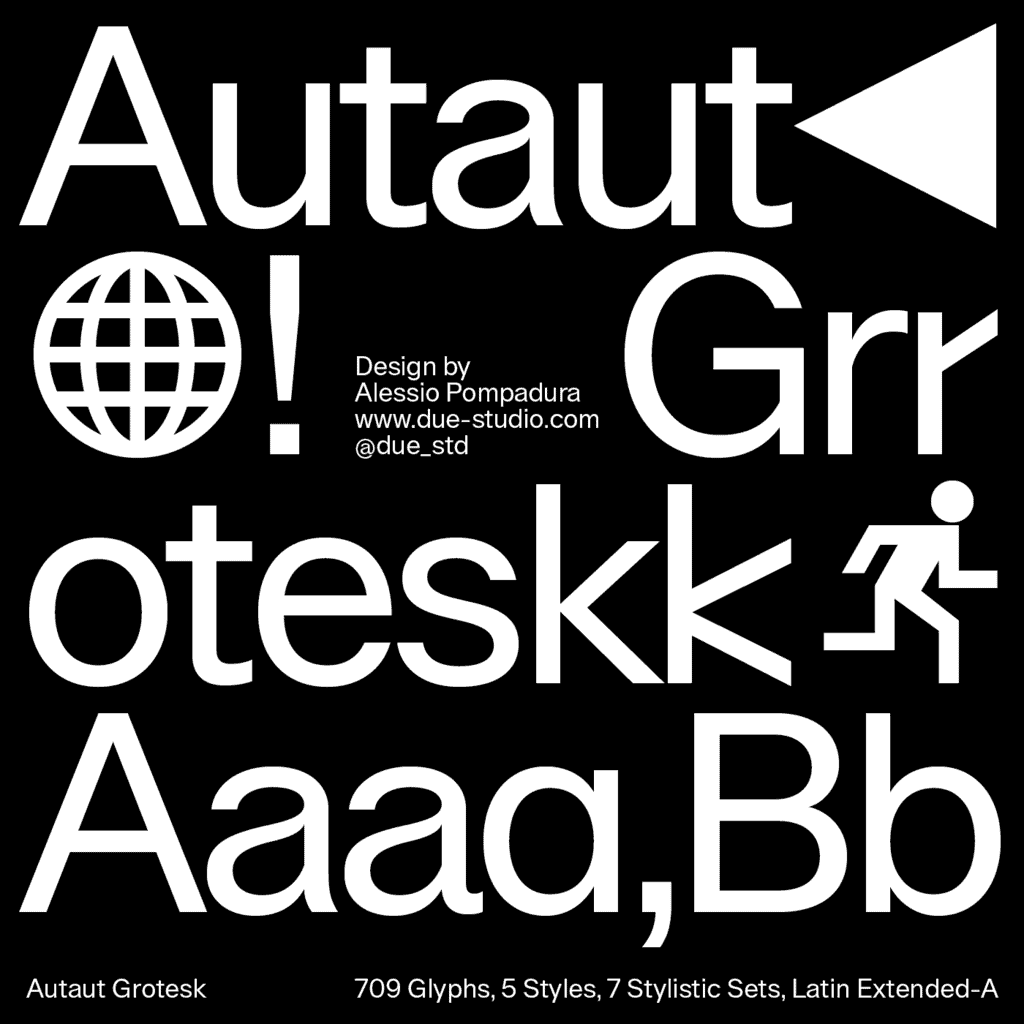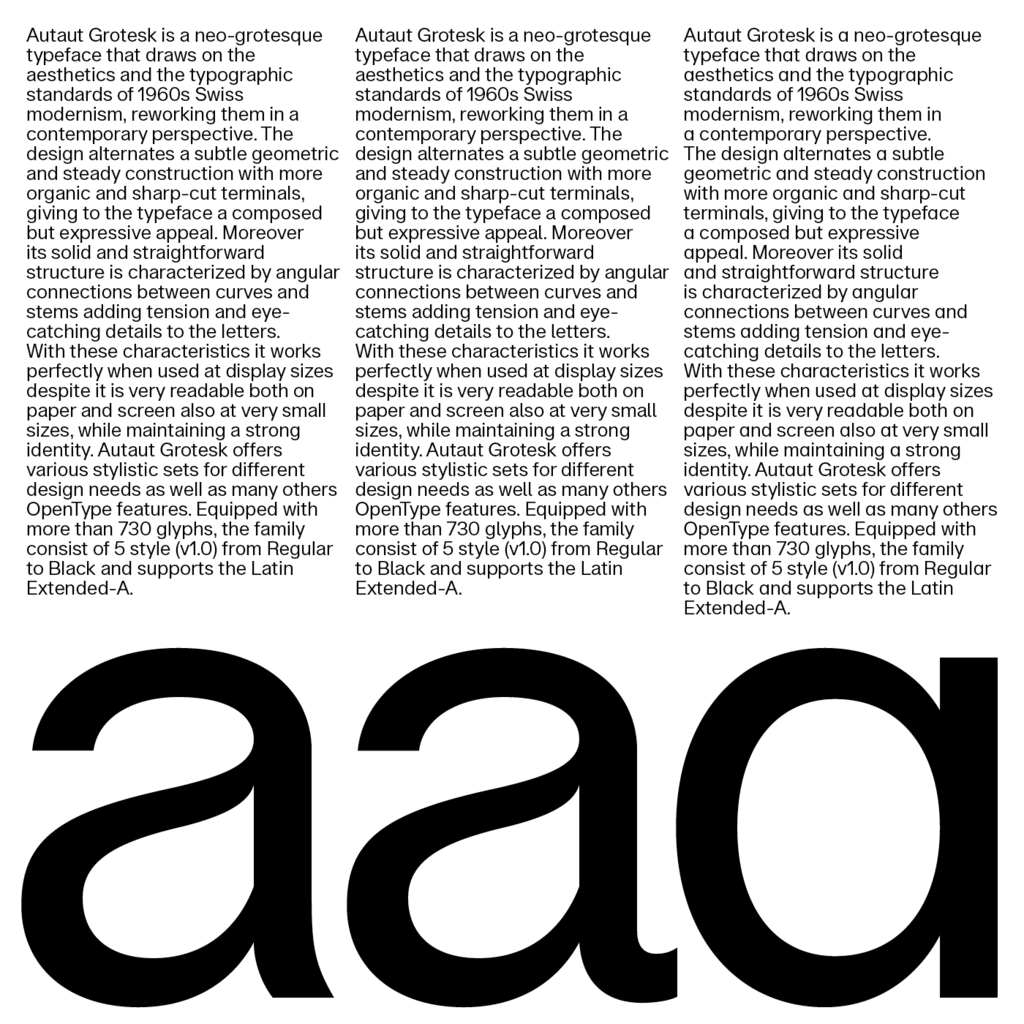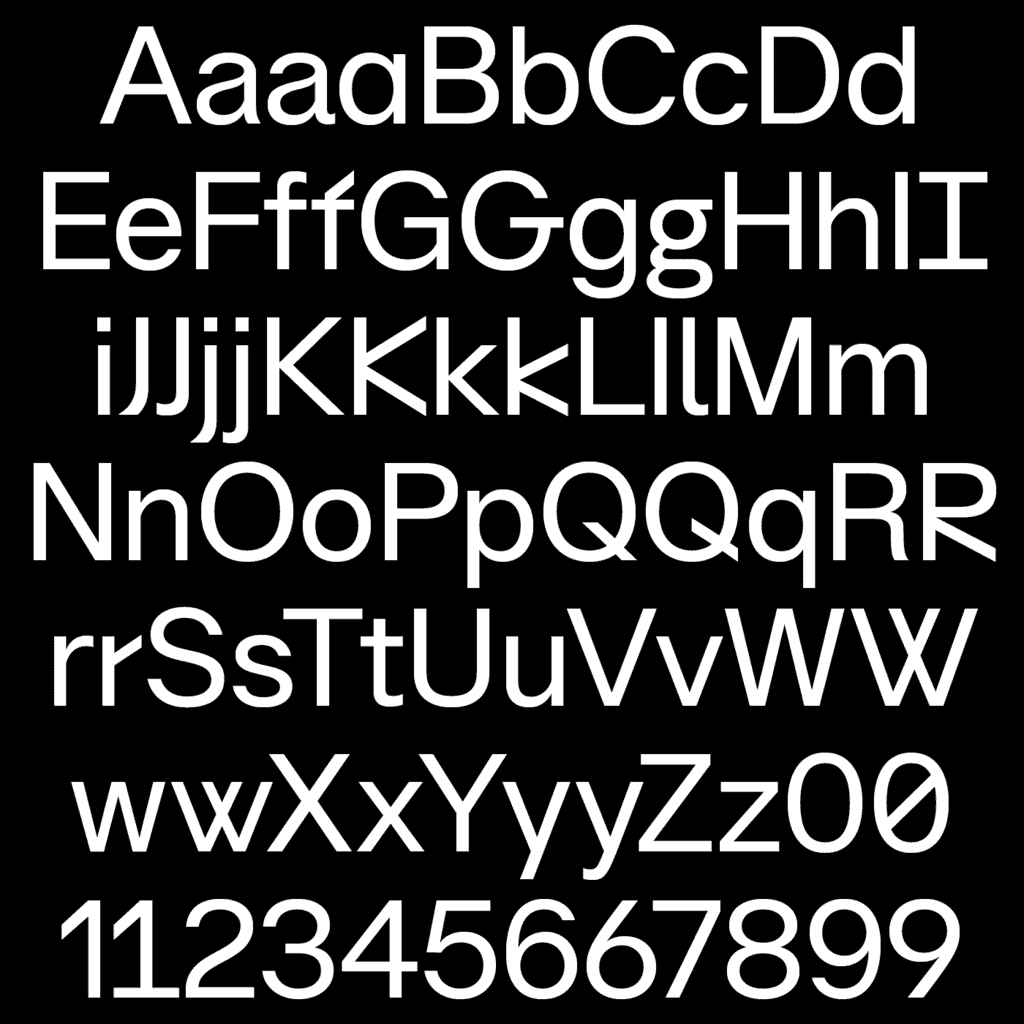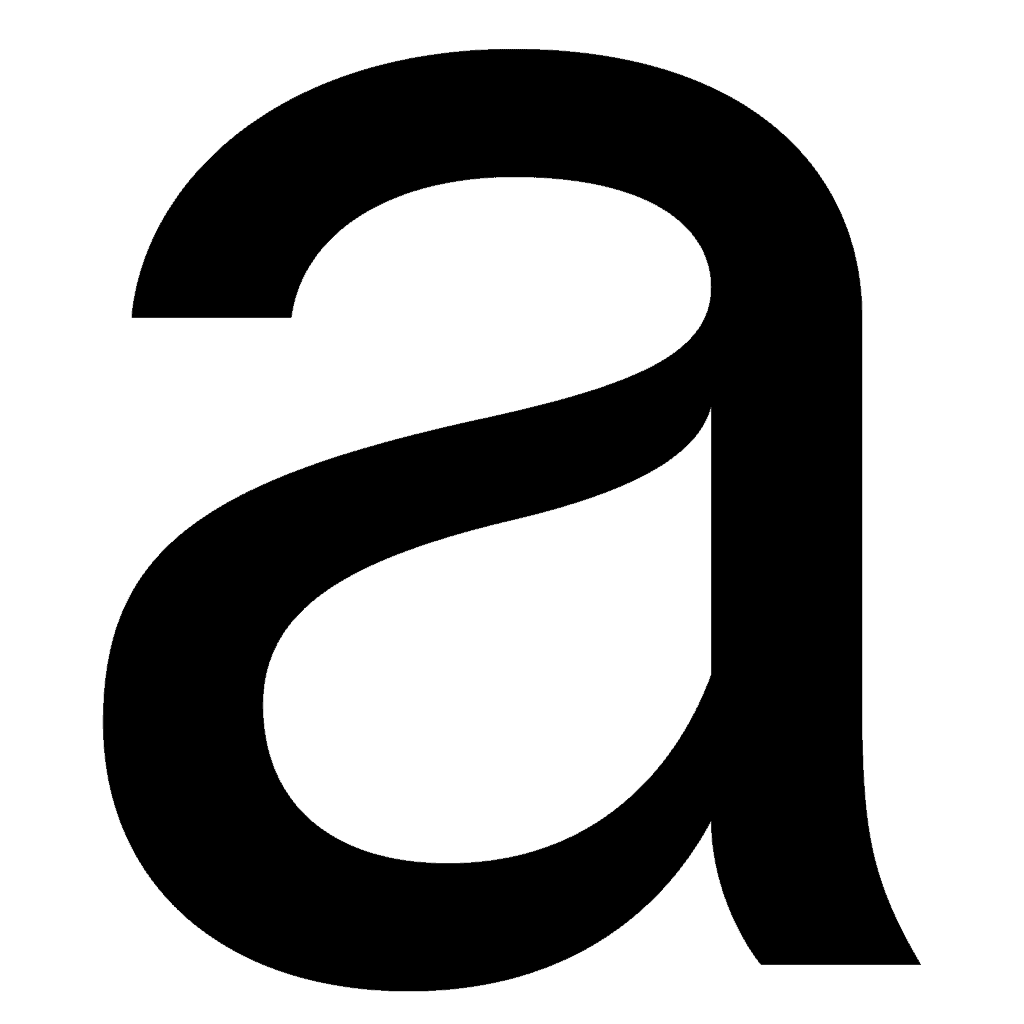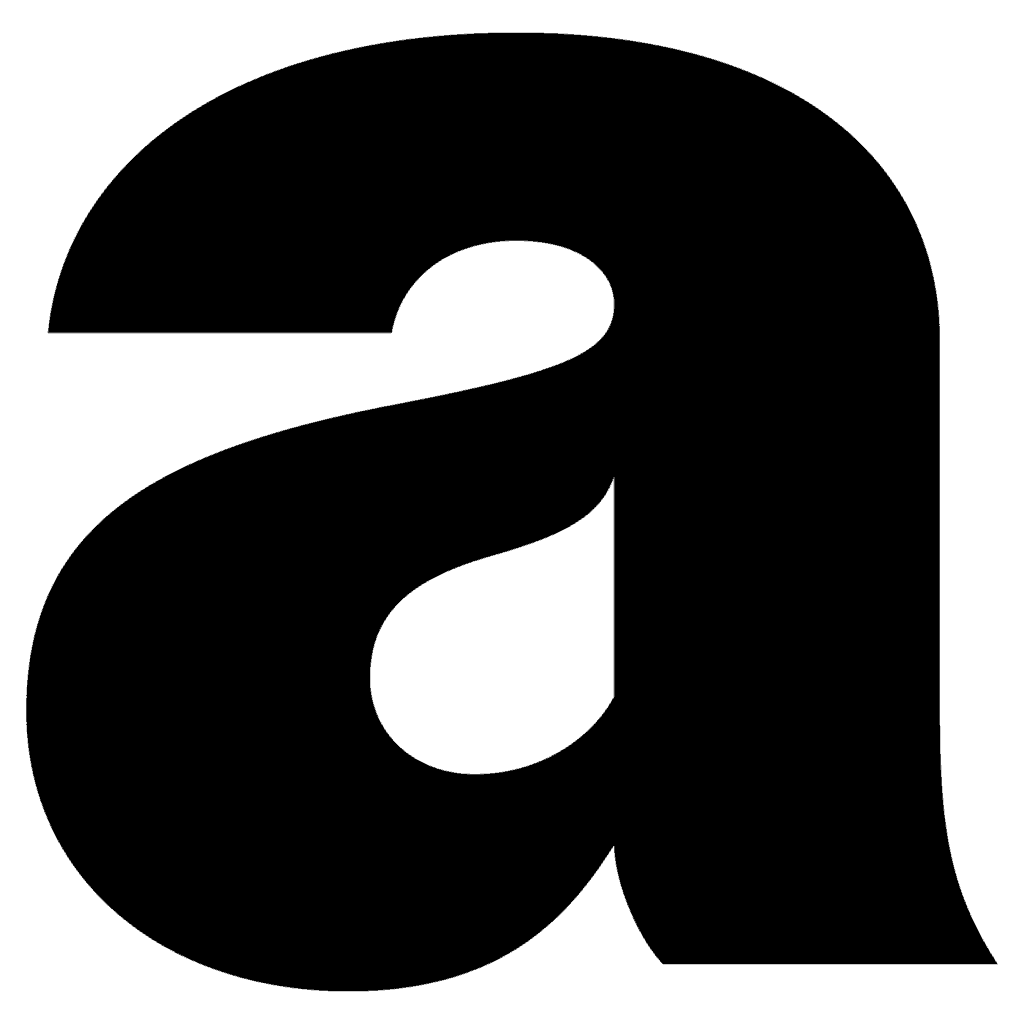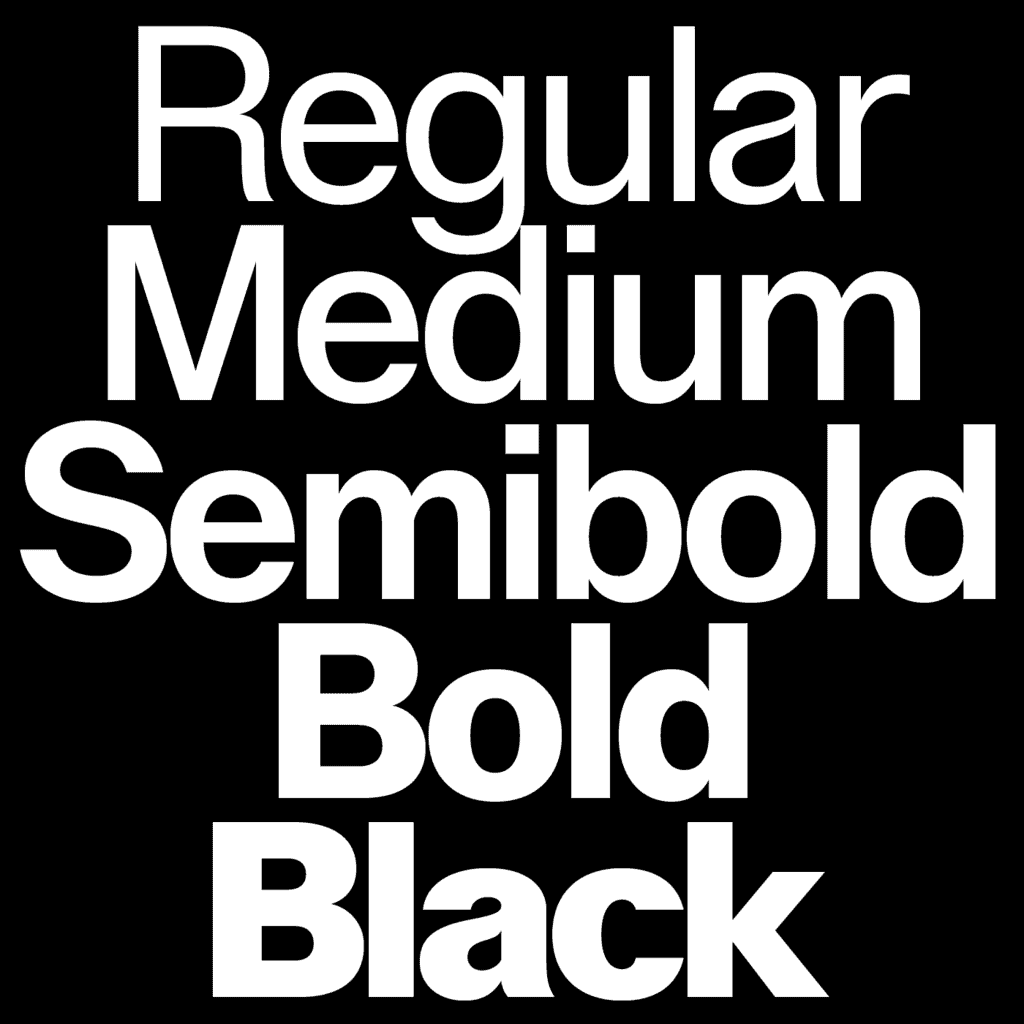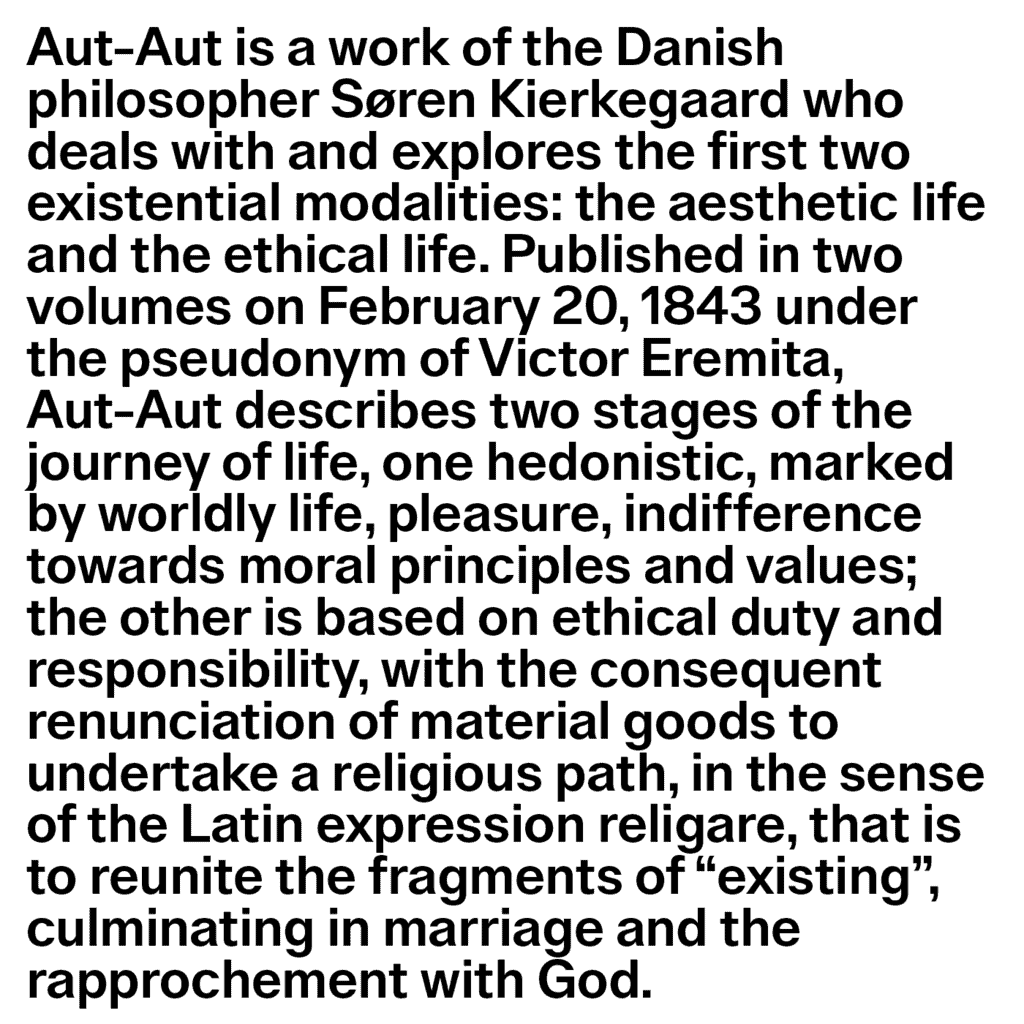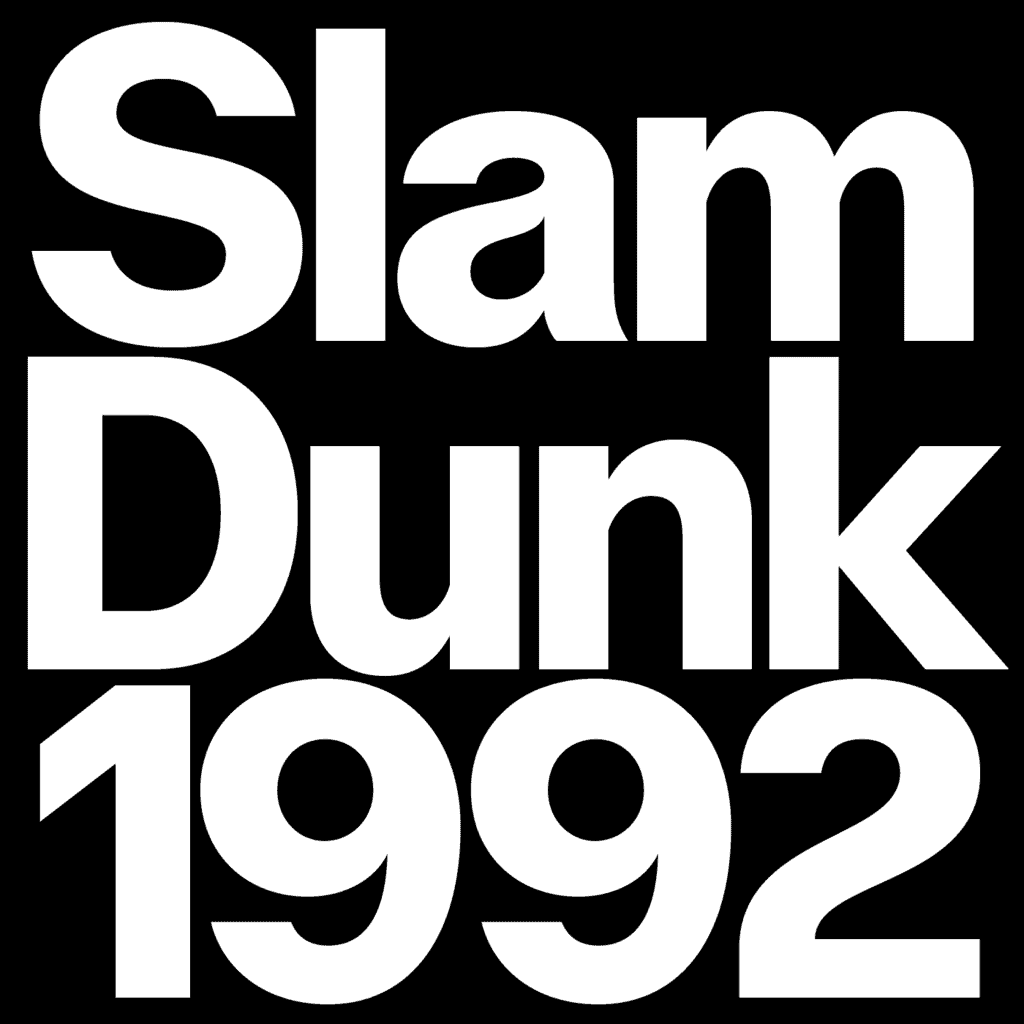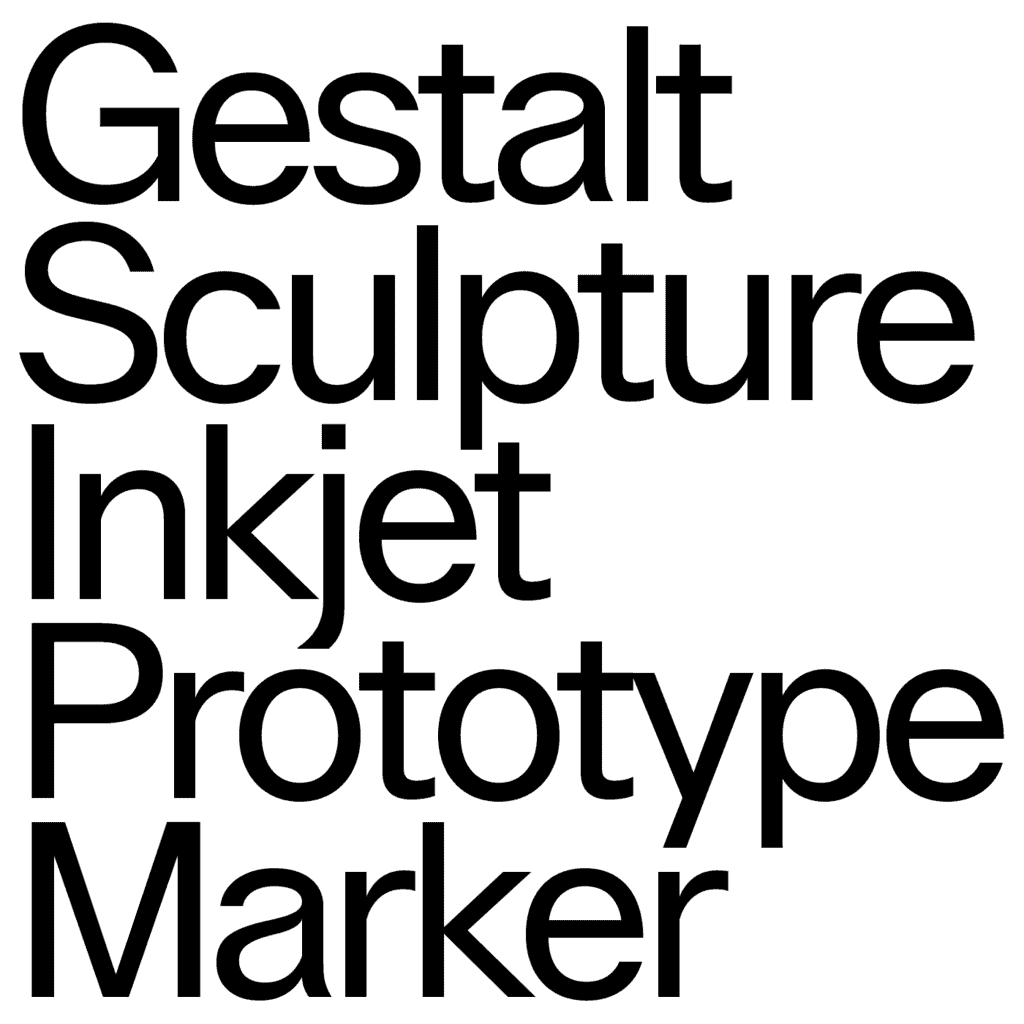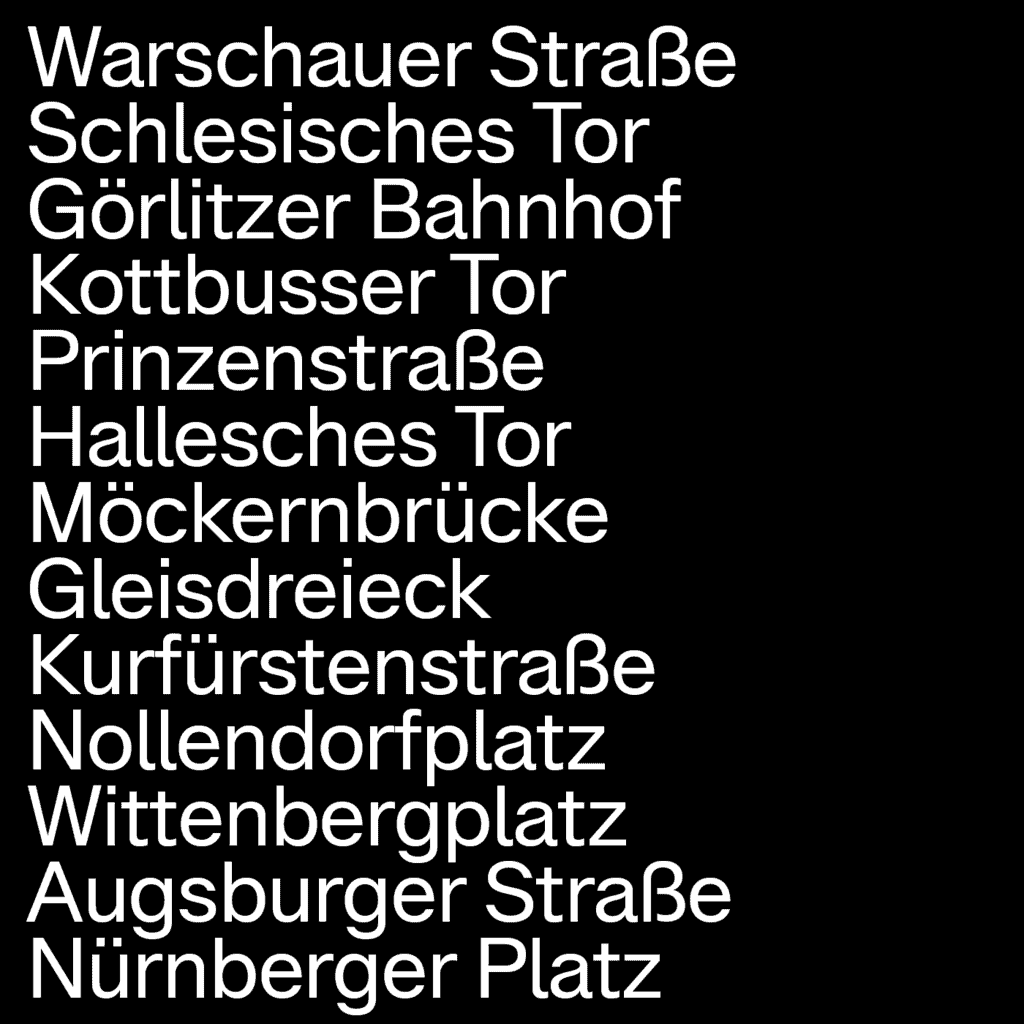
Autaut Grotesk
Autaut Grotesk is a neo-grotesque typeface that channels the aesthetics and typographic standards of 1960s Swiss modernism, reimagined for a contemporary audience. Autaut's typeface design skillfully blends subtle geometric precision with organic, sharp-cut terminals, creating a typeface that is both composed and expressive. Its solid, straightforward structure is highlighted by angular connections between curves and stems, adding tension and eye-catching details to each letter.
Autaut Grotesk is versatile, making a bold statement in display settings on both paper and screen while maintaining a strong identity and readability in text settings.
Autaut Grotesk is a neo-grotesque typeface that channels the aesthetics and typographic standards of 1960s Swiss modernism, reimagined for a contemporary audience. Autaut's typeface design skillfully blends subtle geometric precision with organic, sharp-cut terminals, creating a typeface that is both composed and expressive. Its solid, straightforward structure is highlighted by angular connections between curves and stems, adding tension and eye-catching details to each letter.
Autaut Grotesk is versatile, making a bold statement in display settings on both paper and screen while maintaining a strong identity and readability in text settings.